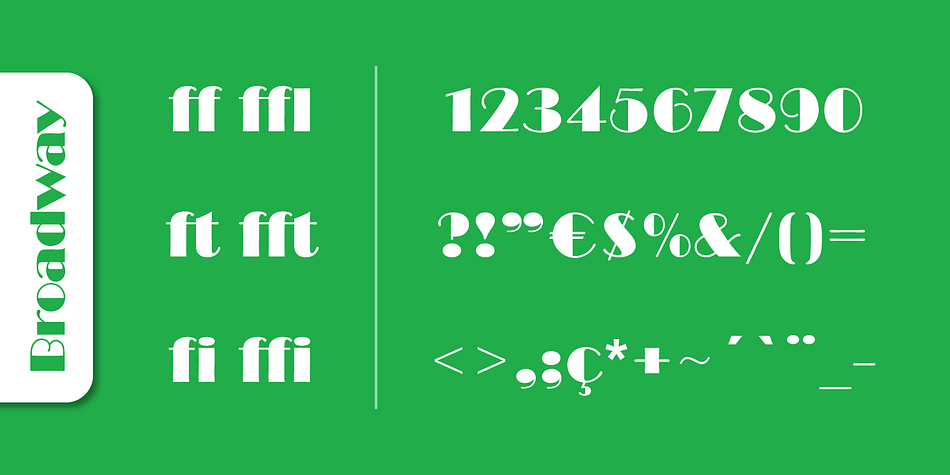
Broadway Pro
Broadway Pro is an art deco and stencil font family. This typeface has six styles and was published by SoftMaker.
Broadway Pro is a decorative typeface, perhaps the archetypal Art Deco typeface.  It was re-discovered in the Cold Type Era and has ever since been used to evoke the feeling of the twenties and thirties.